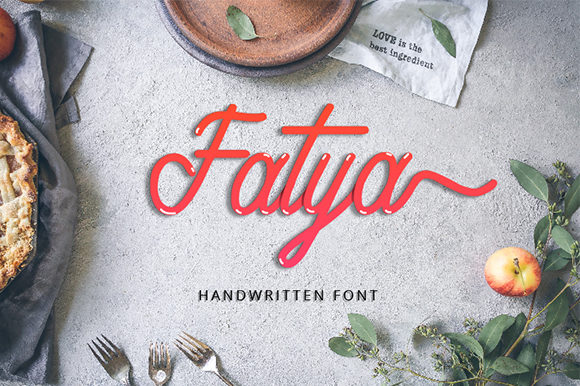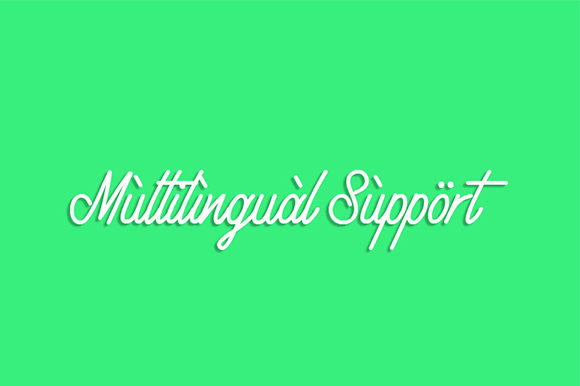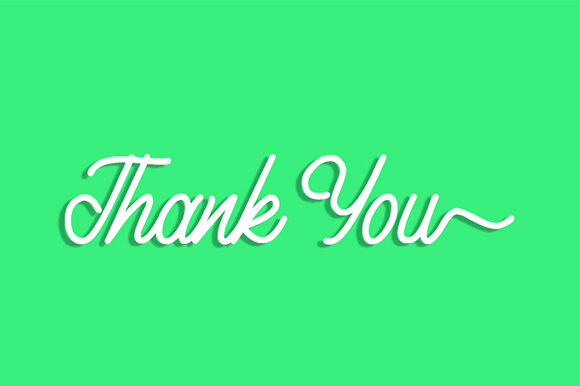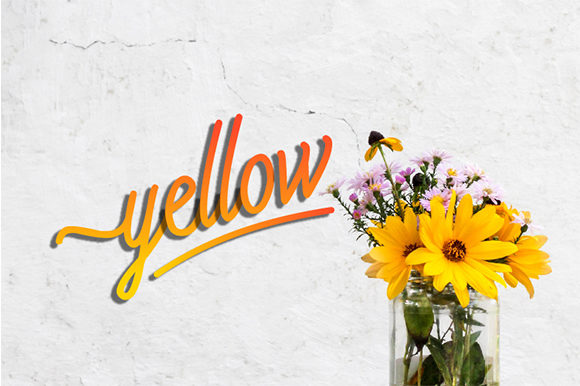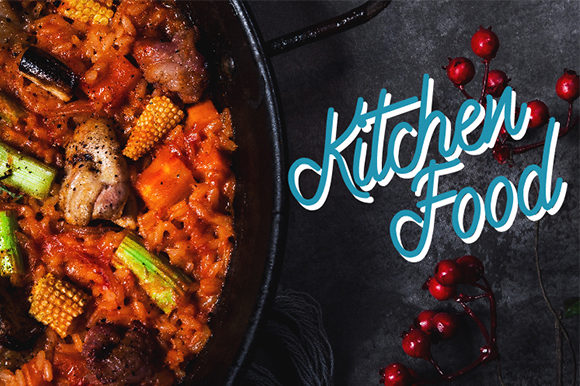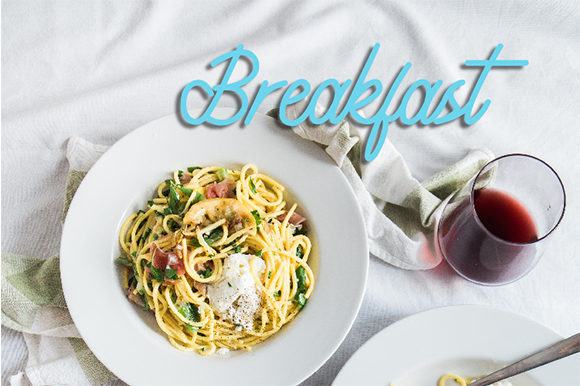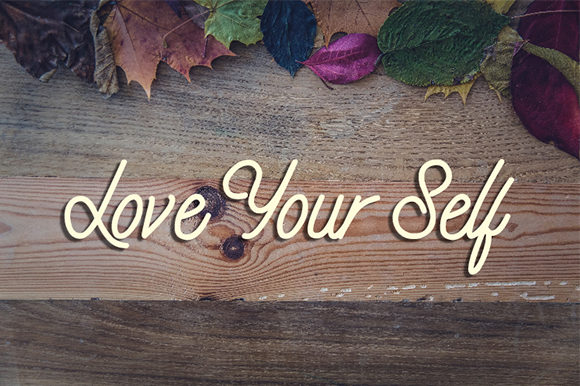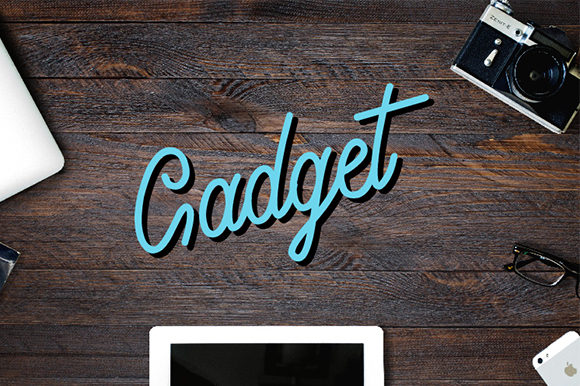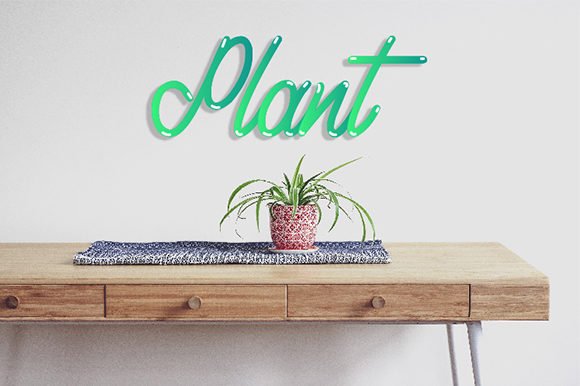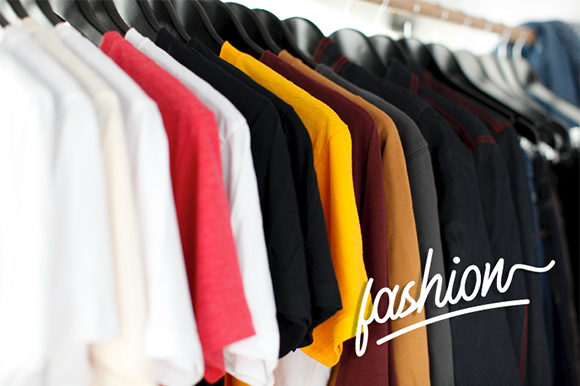
Fatya Font
About Fatya Font
Fatya is an incredibly unique and smooth script with beautiful swashes. Use it to add an authentic touch to any crafting idea!